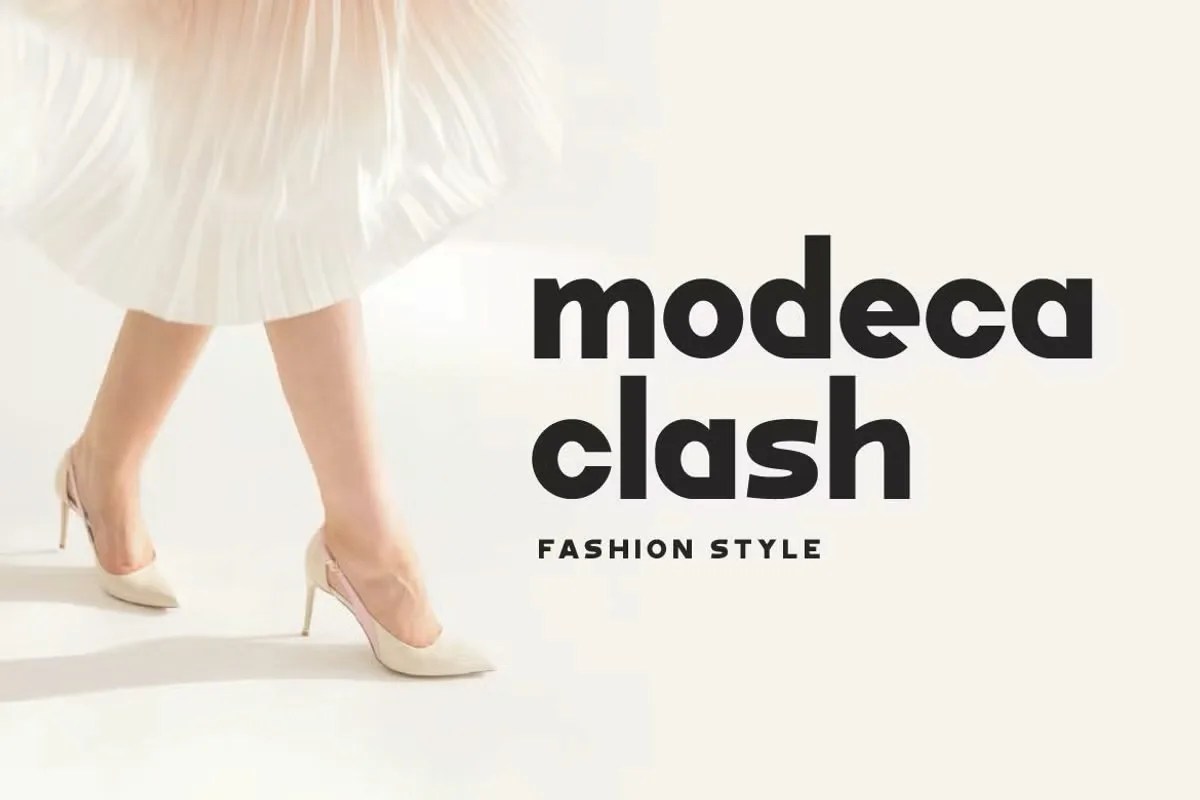
Callips by Artiveko. It is an exceptionally elegant sans serif font that blends minimalist design with a soft, humanistic touch. This typeface offers a sense of calm and sophistication to any layout. Its clean, graceful letterforms communicate your message with clarity and style. Artiveko designed Callips for projects that require a refined and modern aesthetic, making it feel both approachable and high-end.
This font adapts beautifully to a wide range of sophisticated projects. Specifically, it is a perfect choice for lifestyle, beauty, or wellness branding. It instantly conveys a sense of calm, quality, and care. Furthermore, this elegant sans serif font excels in editorial design. Use it for magazine layouts or lookbooks to create a clean, contemporary, and highly readable experience. Its clarity also makes it an excellent option for user interface design and professional presentations.
• Clean and elegant sans serif style
• Features soft, rounded geometric forms
• Ideal for lifestyle branding, editorial, and UI design
• Provides a calm and sophisticated look
Callips